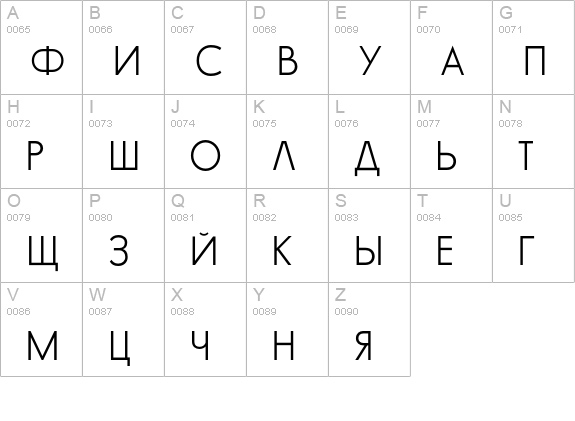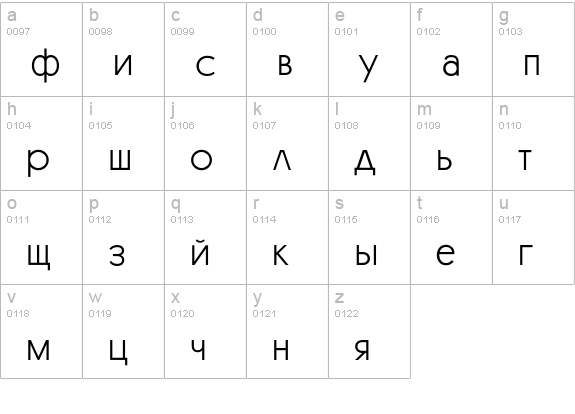
GlasnostLight Font Details
Introducing GlasnostLight font, a sleek and modern typeface that exudes elegance and sophistication. With its clean lines and stylish curves, GlasnostLight is the perfect choice for projects that require a touch of sophistication and professionalism. This versatile font is suitable for a wide range of design projects, from branding and advertising to editorial and web design. Its timeless design ensures that your text will always look fresh and contemporary. And the best part? GlasnostLight is completely free to download at FontsMarket.com. So go ahead and give your projects a touch of class with this stunning font today!